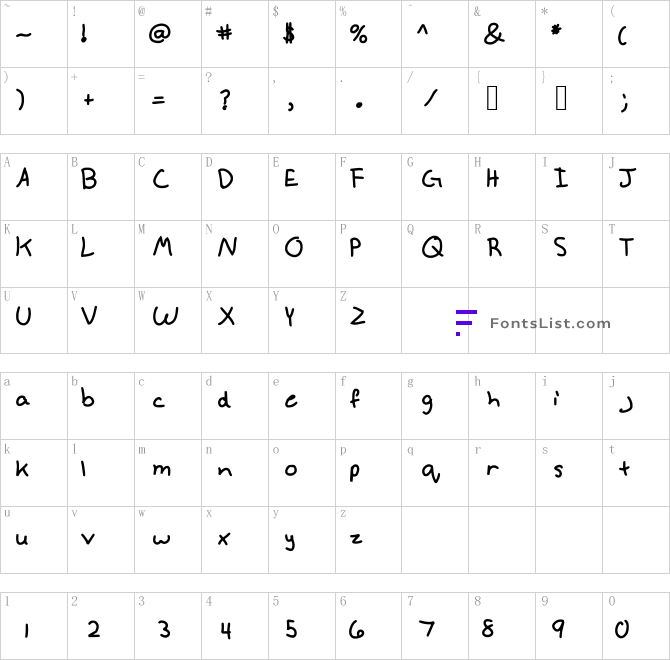
- Font Name:Anneke
AnnekeBold-Medium.ttf is a very beautiful artistic font, AnnekeBold-Medium.ttf is widely used in the design and printing of various books and pictures,AnnekeBold-Medium.ttf has a strong visual impact,AnnekeBold-Medium.ttf is a commonly used font in newspapers, magazines and books, and is used in posters, e-commerce Poster design, store design, logo design, font design and other fields.AnnekeBold-Medium.